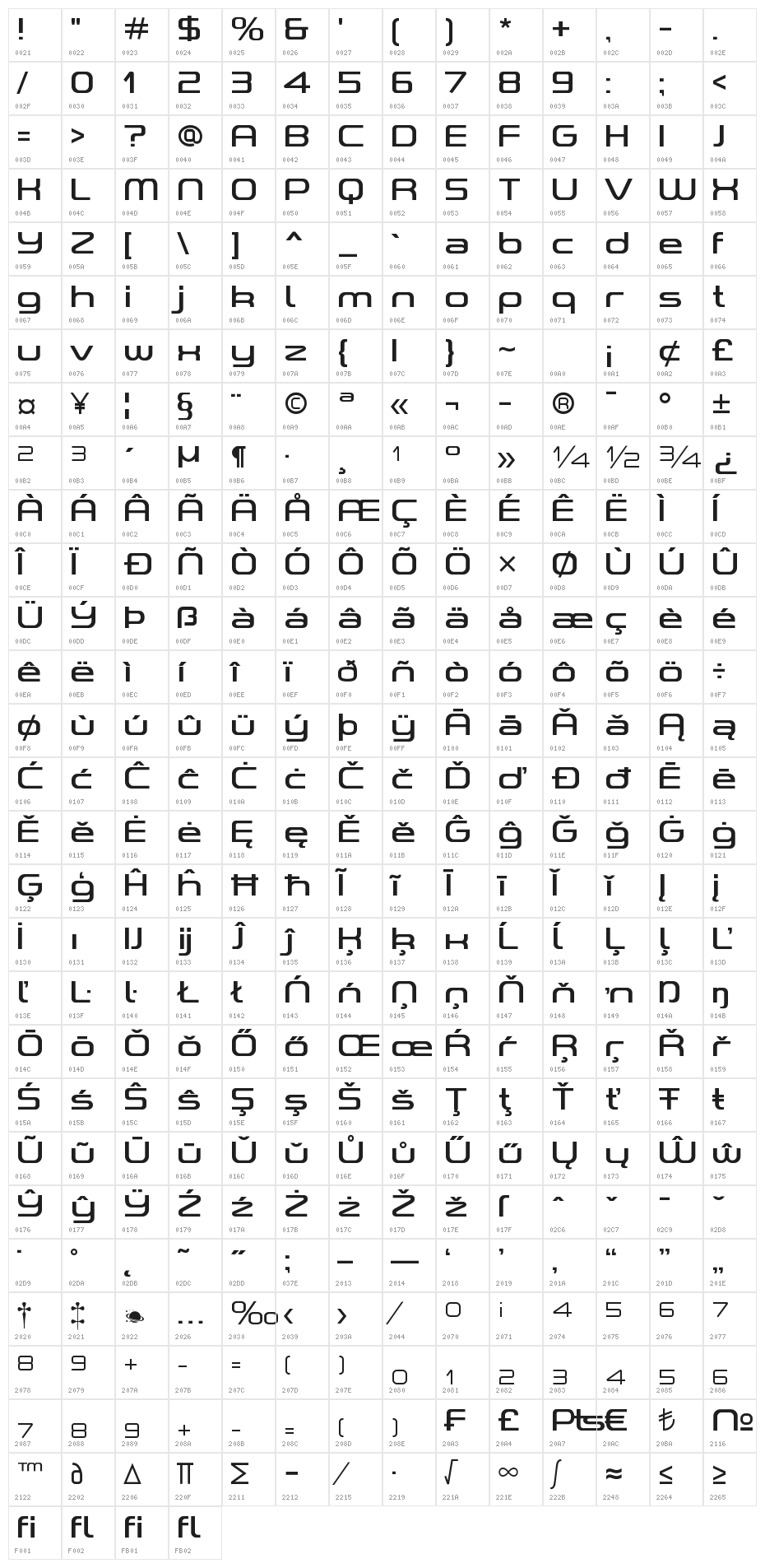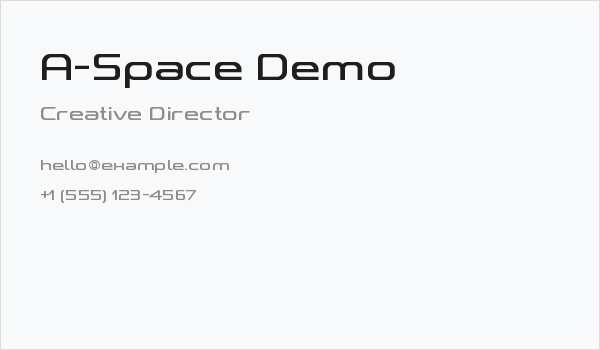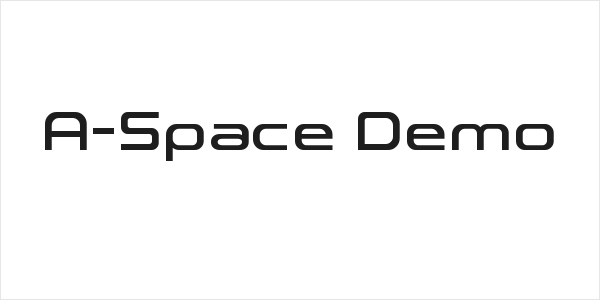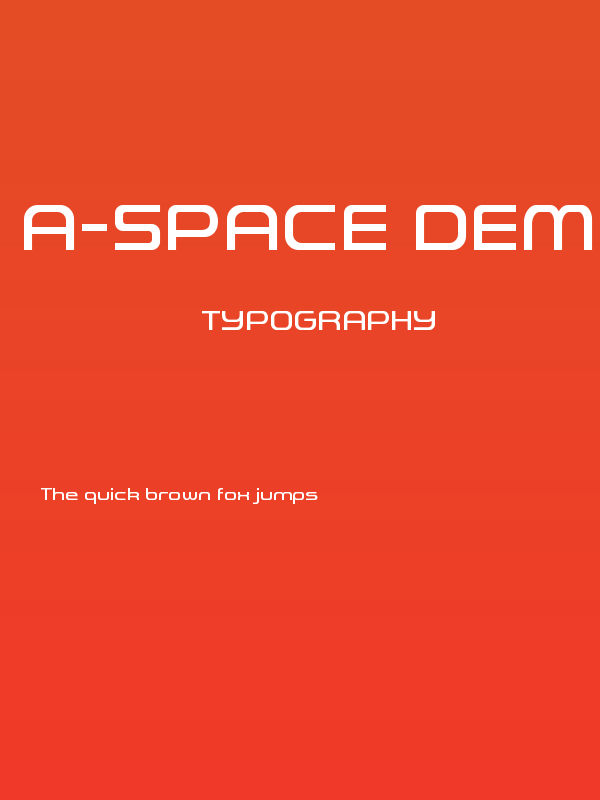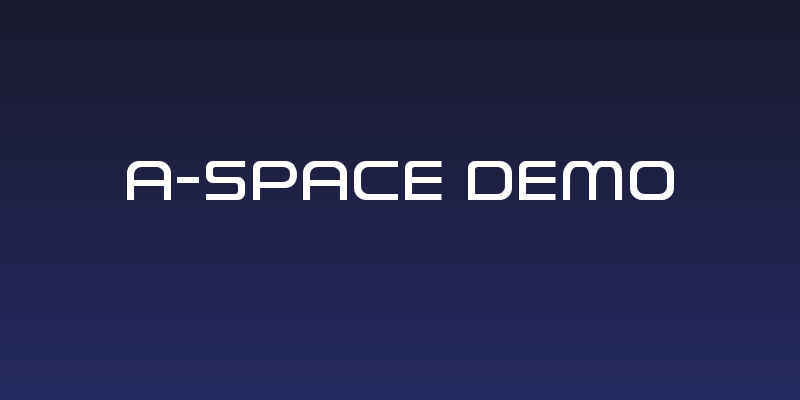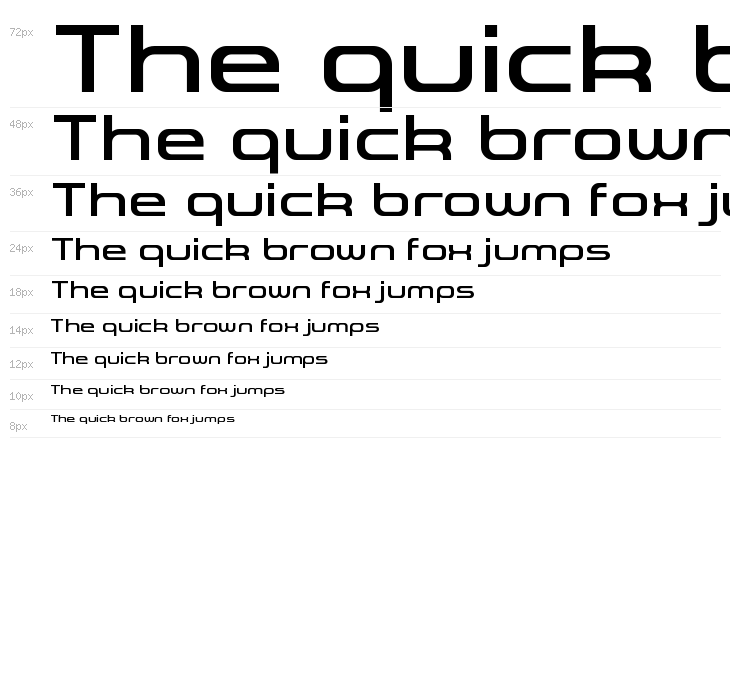
A-Space Demo Font
A-Space Demo Description
This font features a futuristic and geometric design, characterized by its clean lines and rounded edges. The uppercase and lowercase letters maintain a consistent height, creating a uniform appearance. The numerals and special characters follow the same design principles, ensuring a cohesive look across all characters. The font's modern aesthetic is suitable for digital interfaces and technology-related projects. Its simplicity and clarity make it highly legible, even at smaller sizes, while the unique character shapes add a touch of sophistication.
| Use Case | Headlines, Logos, Digital Interfaces |
| Proposed Projects | Ideal for tech branding, digital interfaces, sci-fi themed designs, and modern advertising. |